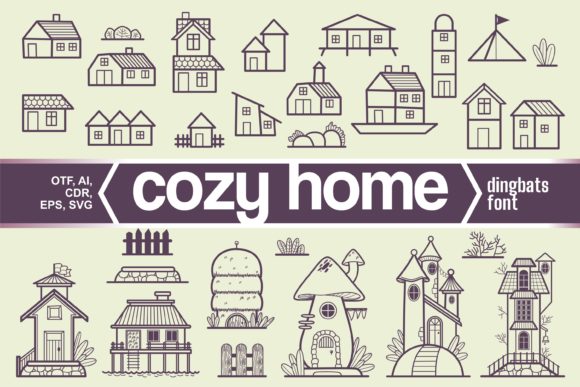
Cozy Home Font: The Ultimate Dingbats Font for Your Design Needs
Are you looking for a font that can add a touch of warmth and coziness to your designs? Look no further than the Cozy Home font. This sweet and unique dingbats font is perfect for a wide range of design projects, from crafting and digital designing to presentations and greeting card making.
What Makes Cozy Home Font So Special?
The Cozy Home font is a one-of-a-kind dingbats font that boasts a distinct style that sets it apart from other fonts. Its unique charm makes it incredibly fitting for a large pool of designs, allowing you to add a personal touch to your projects.
- Unique and Sweet Design: The Cozy Home font features a sweet and unique design that is sure to capture the attention of your audience.
- Dingbats Font: As a dingbats font, Cozy Home offers a wide range of decorative elements that can be used to enhance your designs.
- Versatile: This font is perfect for various design projects, including crafting, digital designing, presentations, and greeting card making.
How to Use Cozy Home Font in Your Designs
The Cozy Home font is an incredibly versatile font that can be used in a wide range of design projects. Here are some ideas to get you started:
- Crafting: Use the Cozy Home font to add a personal touch to your crafting projects, such as handmade cards, scrapbooking, and DIY decorations.
- Digital Designing: Add a touch of warmth and coziness to your digital designs, such as social media graphics, blog posts, and website headers.
- Presentations: Use the Cozy Home font to create engaging and visually appealing presentations that will capture the attention of your audience.
- Greeting Card Making: Create beautiful and unique greeting cards for special occasions, such as birthdays, holidays, and weddings.
The Benefits of Using Cozy Home Font
Using the Cozy Home font in your designs offers a range of benefits, including:
- Unique and Eye-Catching Designs: The Cozy Home font allows you to create unique and eye-catching designs that will stand out from the crowd.
- Time-Saving: With the Cozy Home font, you can create professional-looking designs in no time, saving you time and effort.
- Customization: The Cozy Home font offers a range of customization options, allowing you to tailor your designs to your specific needs.
Tips and Tricks for Using Cozy Home Font
Here are some tips and tricks for using the Cozy Home font in your designs:
- Experiment with Different Sizes and Colors: Don’t be afraid to experiment with different sizes and colors to find the perfect combination for your design.
- Use it with Other Fonts: The Cozy Home font pairs well with other fonts, so don’t be afraid to use it in combination with other fonts to create a unique look.
- Make it Your Own: Add your own personal touch to your designs by customizing the Cozy Home font to fit your specific needs.
In conclusion, the Cozy Home font is a sweet and unique dingbats font that is perfect for a wide range of design projects. Its distinct style makes it incredibly fitting for crafting, digital designing, presentations, and greeting card making. With its versatility, customization options, and unique design, the Cozy Home font is sure to become a staple in your design toolkit.